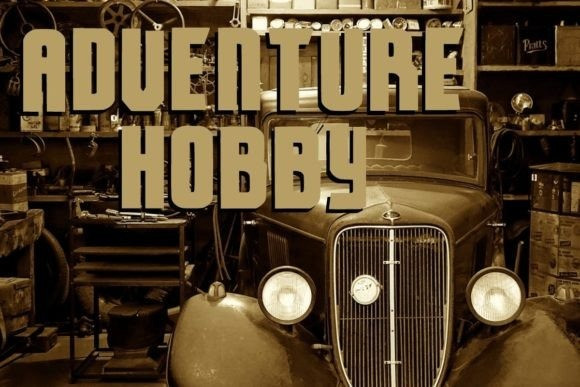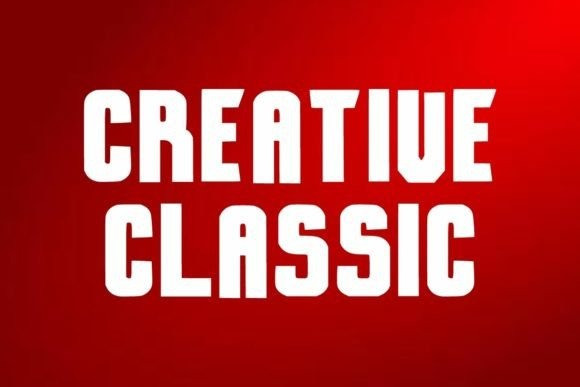
Sergio Sans Font
Sergio Sans Font is a bold and easy-to-read all-caps display font that exudes confidence and authority. Its Classic bold is ideal for various design projects that require a strong visual impact, including digital design, presentations, greeting cards, crafts, and branding. Its clean lines and legibility make it a reliable choice.